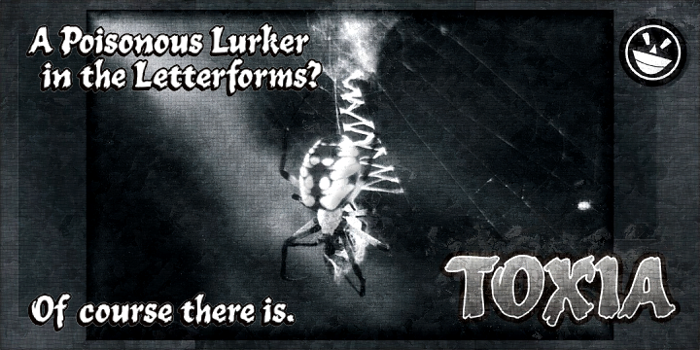
TOXIA Font
Toxia by Michael G Adkins
Want something poisonous to hide in your letterforms? A bit dangerous and dripping wet as it clambers up out of the mire? Try some Toxia. It's a brewed blend guaranteed to tighten your throat and leave you gasping no more.
i like this font, it is bold and realy stands out
nice font
Killer Font
Cool font however not including any symbols makes it really annoying to use.